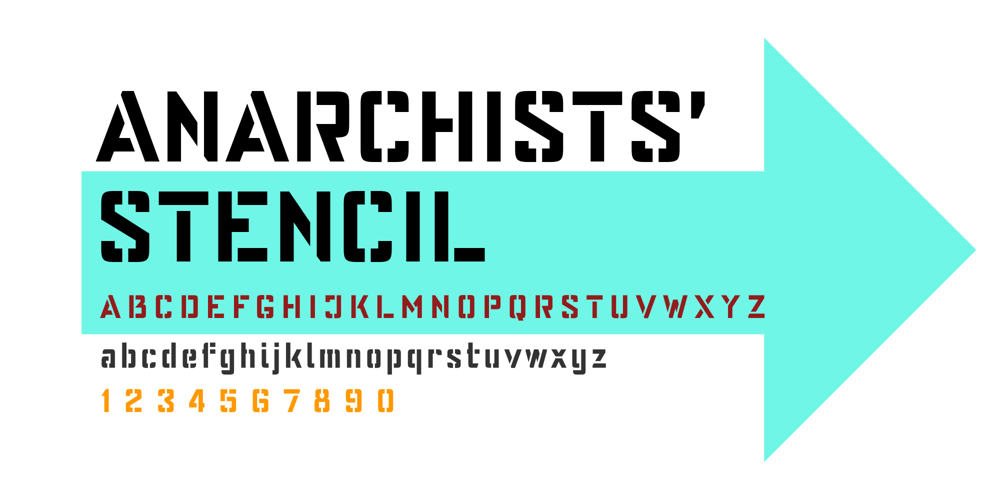
Anarchists Stencil
Anarchists Stencil font
Anarchists Stencil Font Family was designed by Dmitri Zdorov and published by Dimka Fonts. Anarchists Stencil contains 1 styles and family package options. Anarchists’ Stencil is Stencil a font with support for all European languages.A total of 556 glyphs are spread across Latin, Greek, and Cyrillic scripts. Clearly distinguishable from a distance, it provides a high contrast and readability.Anarchist slogans graphite was inspired by abandoned highway billboards in Arizona, because the design was looking very bold and was very easy to read.